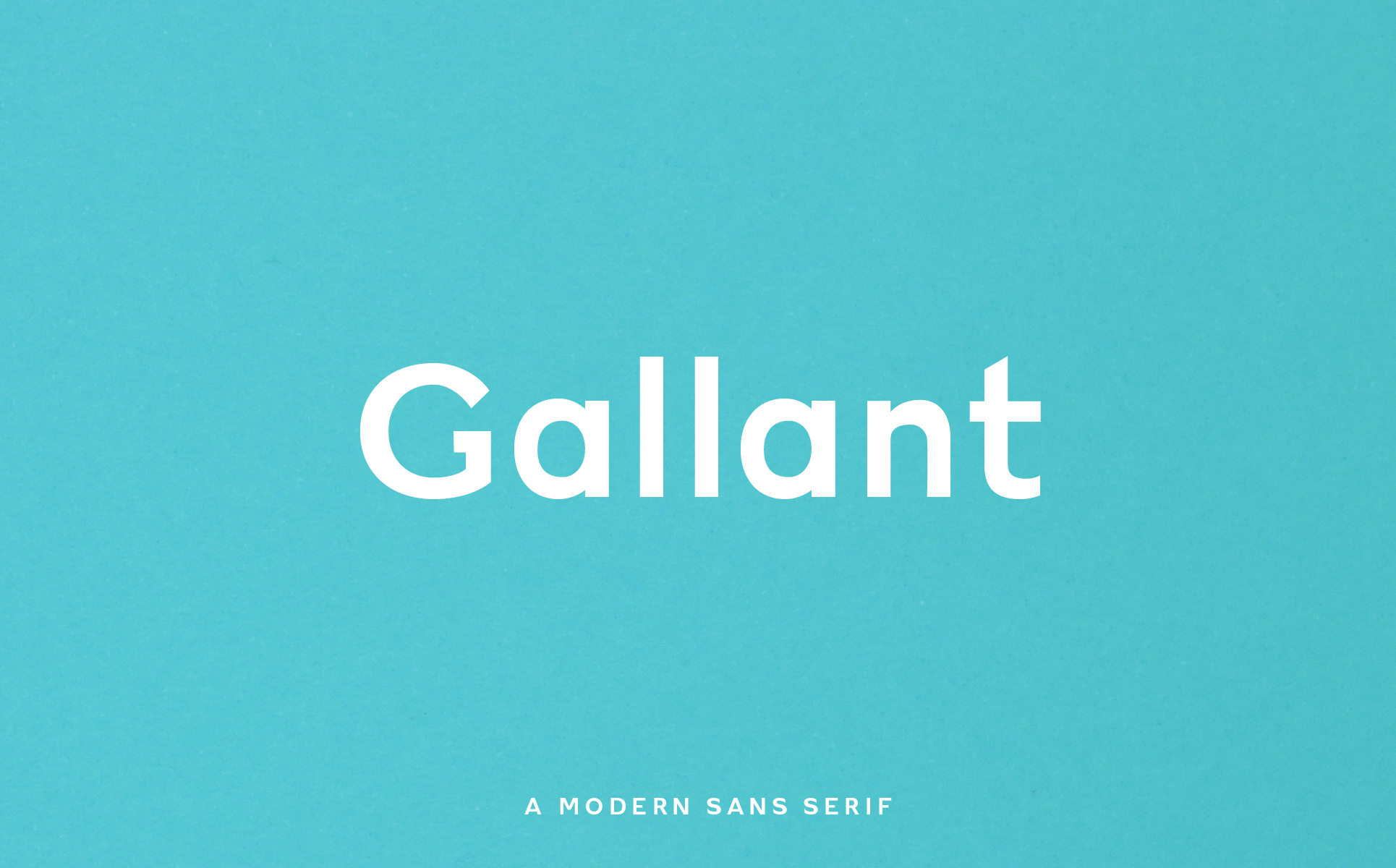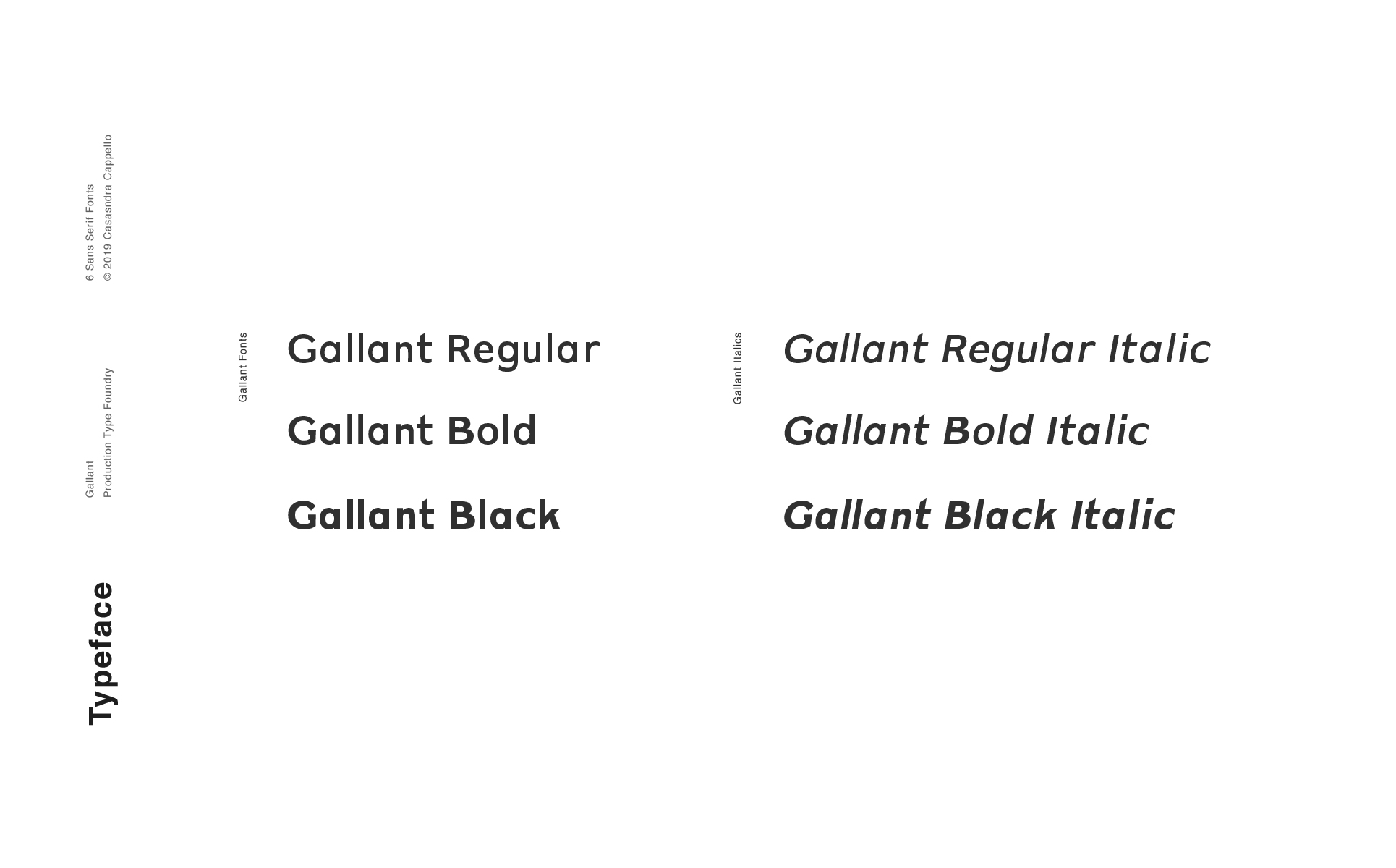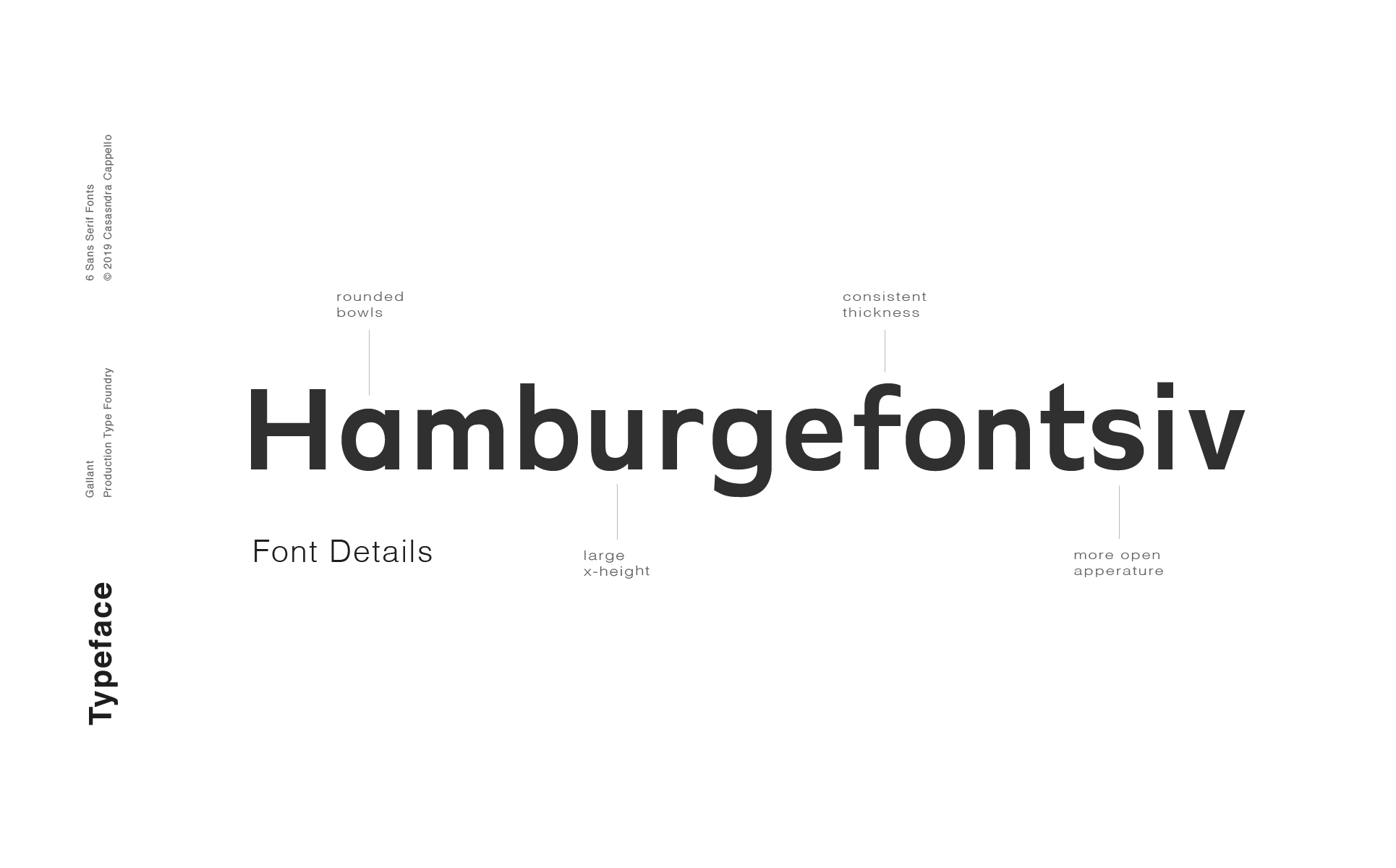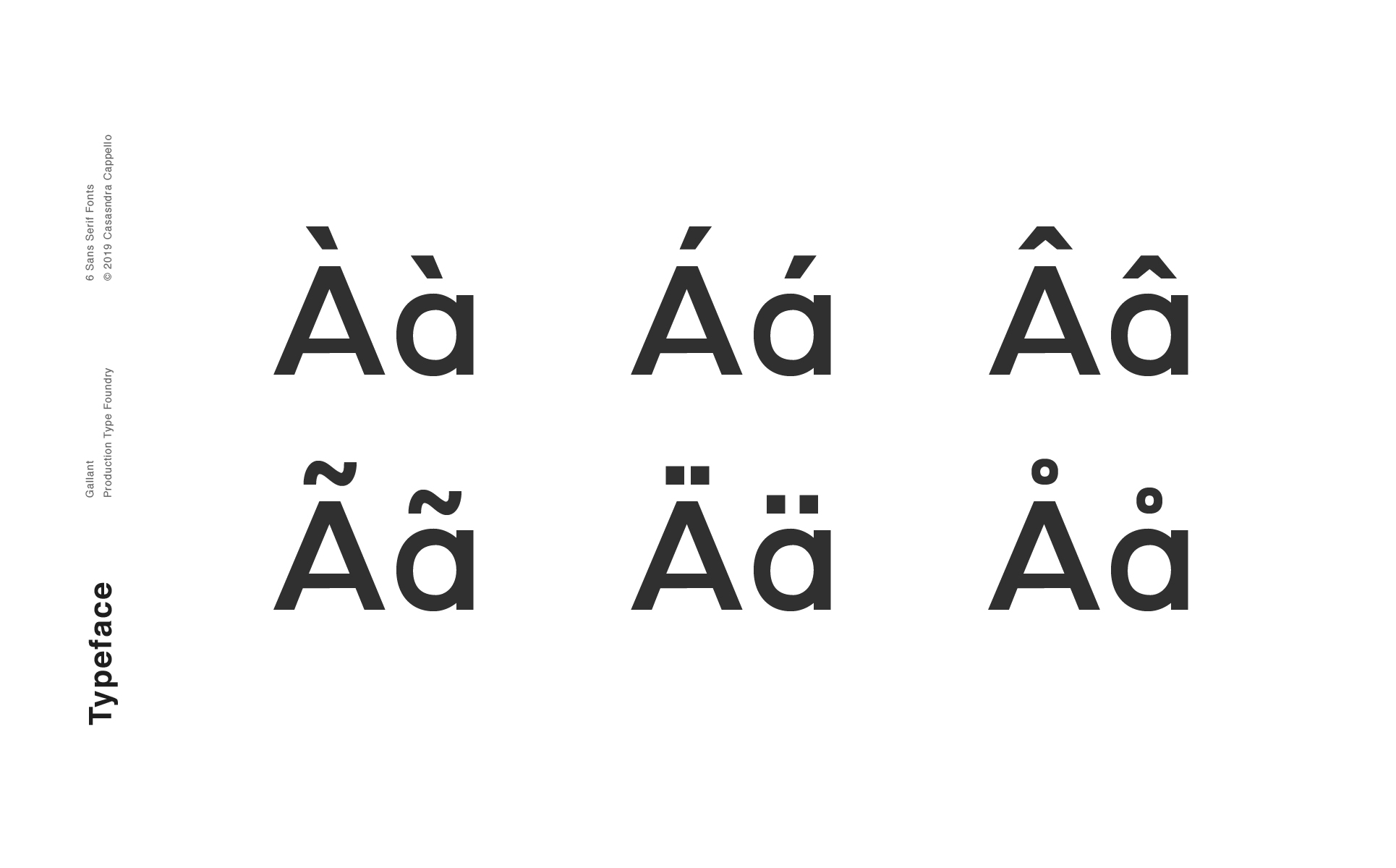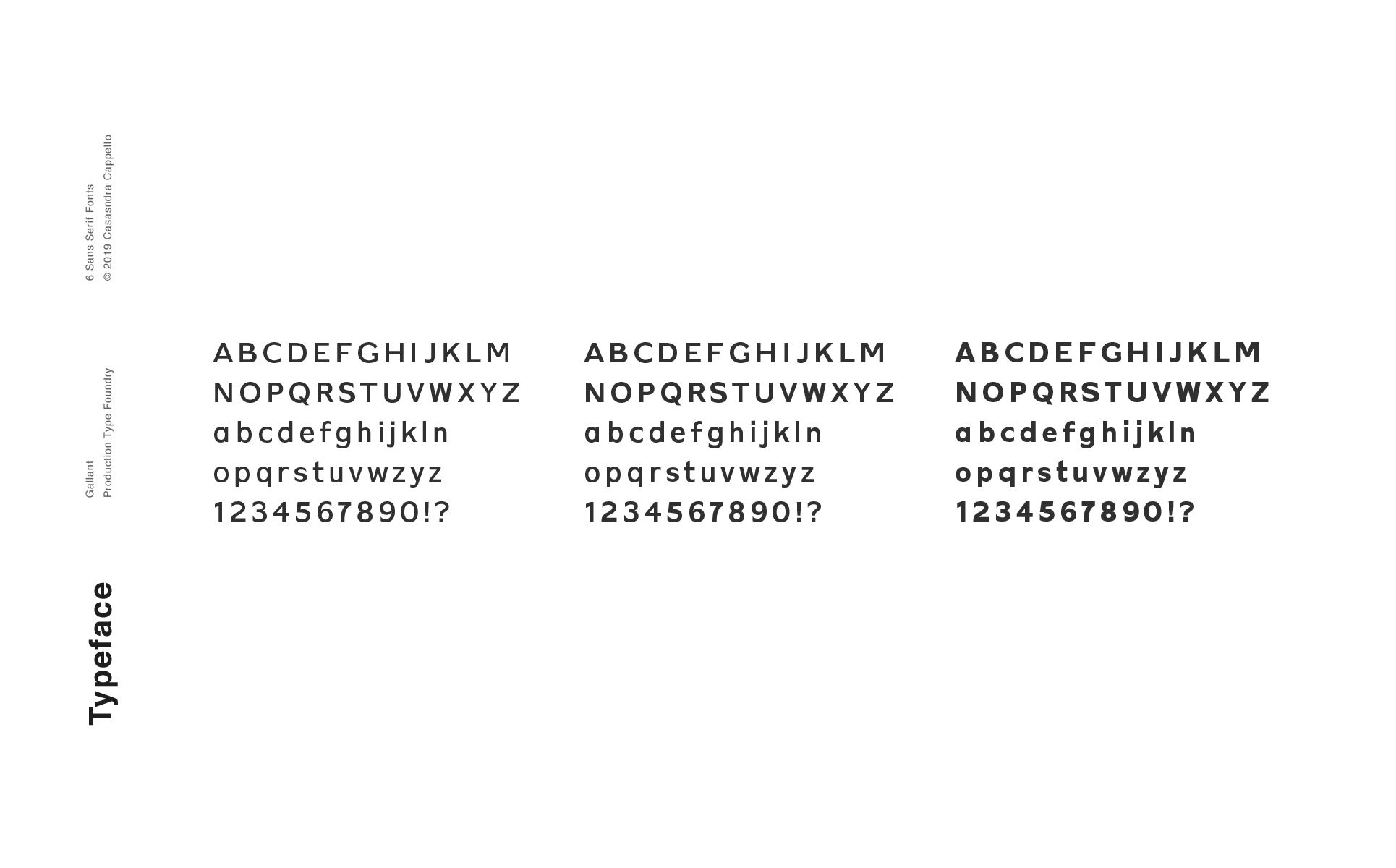
Gallant - A Geometric Typeface Font
Gallant is a modern, geometric, sans serif typeface. Its fun demeanor gives the font family a little bit of personality. Gallant can be used for both headers and body copy. This font family includes all Latin characters (including accents), numbers, special characters, and punctuation.